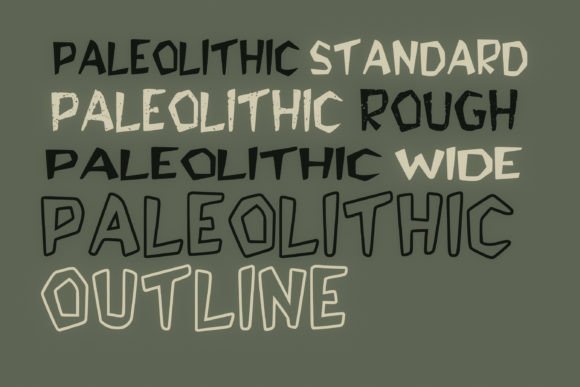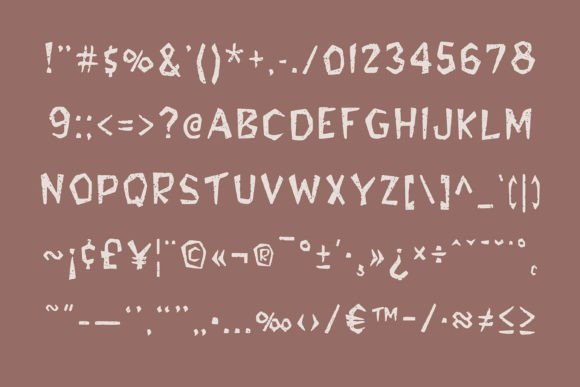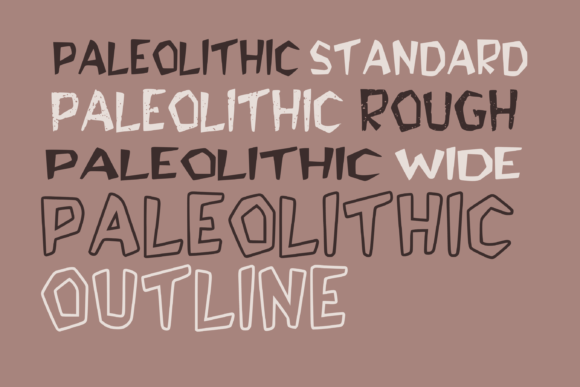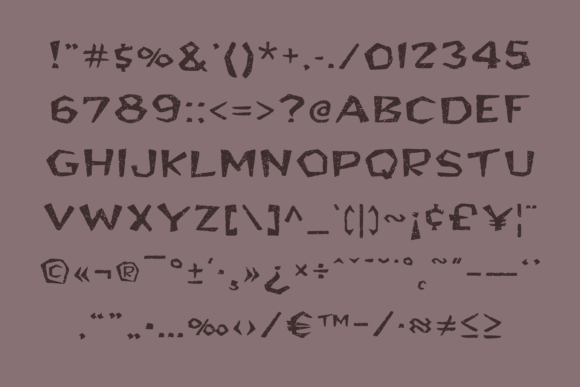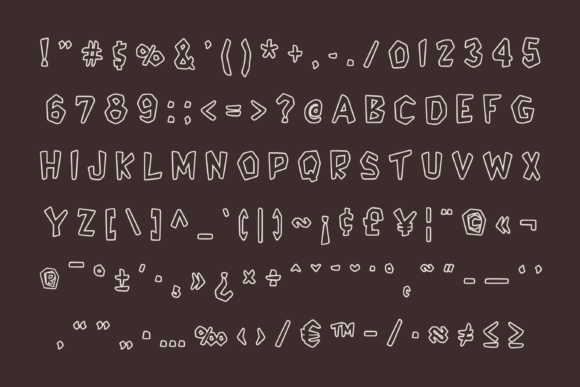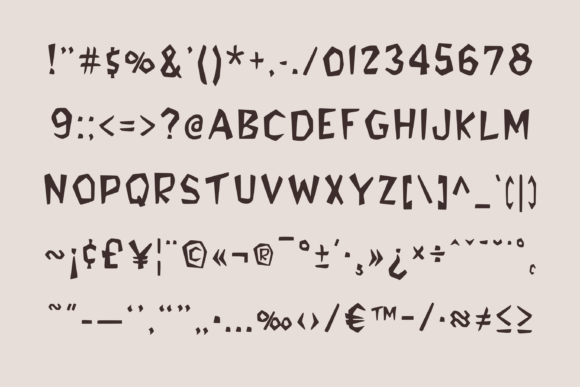
Introduction to Paleolithic Font
As a designer, there’s nothing quite like the thrill of discovering a new font that sparks creativity and ignites your imagination. For me, it was the moment I stumbled upon the Paleolithic Font – an all-caps, geometric sans serif font that transported me back to the ancient days of cave paintings and mysterious runes.
With its unique, uneven strokes and rough-around-the-edges aesthetic, the Paleolithic Font is more than just a design resource – it’s a high-quality tool that can elevate any creative project from a simple presentation to a stunning work of art. Whether you’re working on a digital design, crafting a handmade card, or creating a visually striking poster, this font is the perfect addition to your design arsenal.
Key Features of Paleolithic Font
- High-quality design resource suitable for various creative projects, including graphic design, digital art, and publishing.
- Unique, hand-drawn design with a focus on primitive, ancient themes, evoking a sense of history and cultural heritage.
- Includes a range of glyphs and characters, making it a versatile design resource for various creative projects.
- Perfect for designers and artists looking for a distinctive, high-quality font to add a touch of ancient charm to their work.
Honest Review: Paleolithic Font
I recently stumbled upon the Paleolithic Font and was immediately drawn to its unique, high-quality design. As a designer, I appreciate the thought and care that went into creating this font.
- ✨ High-resolution images that showcase the font’s texture and design
- ✨ A transparent background option, making it easy to use in creative projects
- ⚠️ Limited character set, which may be a challenge for longer text-based projects
- ⚠️ Not suitable for small text sizes, as the font may become difficult to read
Overall, I’m impressed with the Paleolithic Font. Its unique design and high-quality images make it a great addition to any designer’s resource library. While it may have some limitations, it’s a valuable asset for creative projects where a distinctive look is needed.
The Paleolithic Font is a unique and versatile design resource that can elevate your creative project to the next level. With its high quality and transparent background, this font is perfect for designers who want to add a touch of sophistication to their work.
Tips for Getting the Most Out of Paleolithic Font
To get the most out of the Paleolithic Font, use it in combination with other design elements, such as images and graphics, to create a cohesive and visually appealing design. You can also experiment with different font sizes, colors, and styles to find the perfect look for your project.
Common Use Cases for Paleolithic Font
The Paleolithic Font is perfect for a variety of creative projects, including graphic design, logo design, and typography projects. It’s also great for use in presentations, documents, and social media graphics.